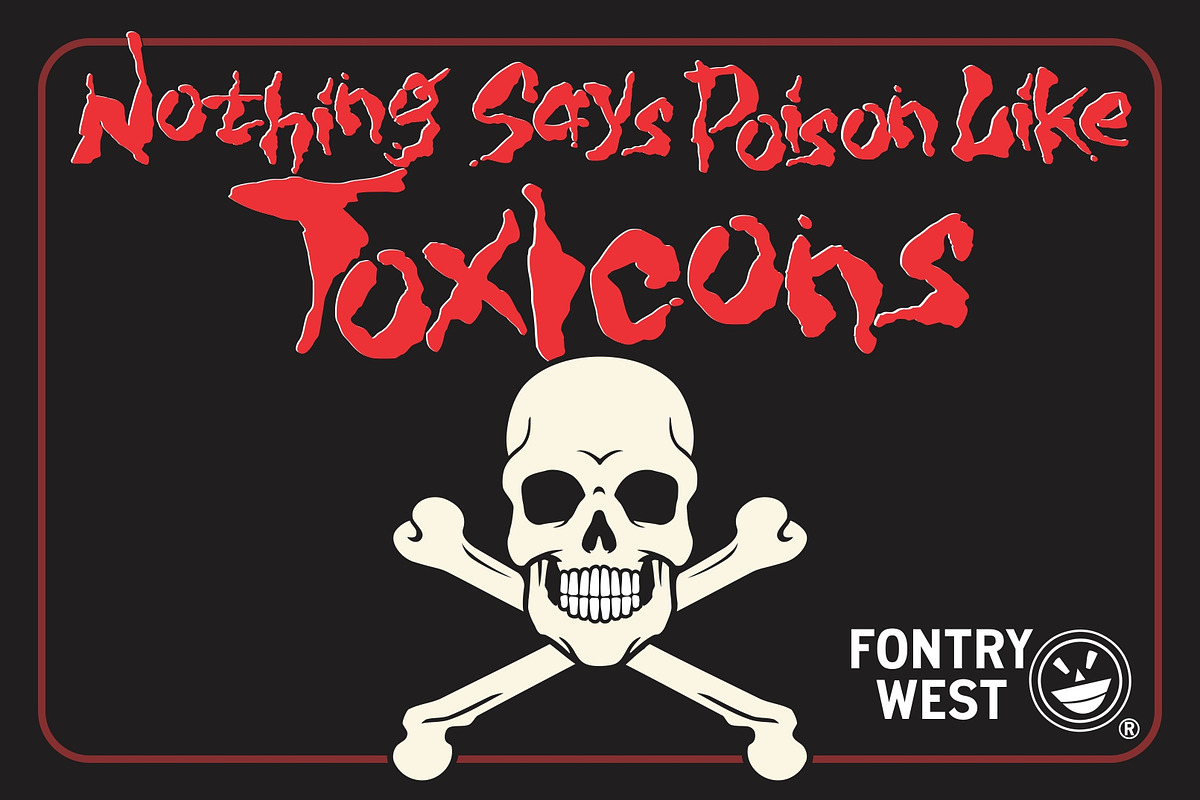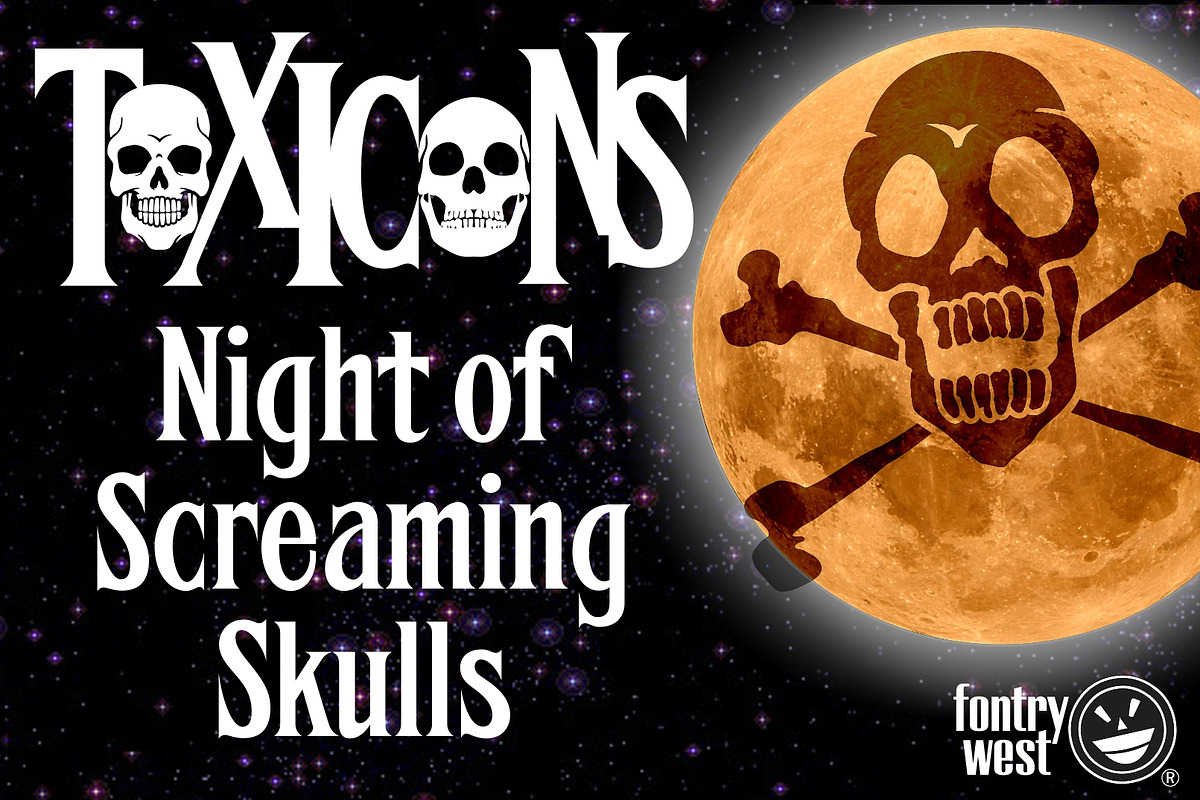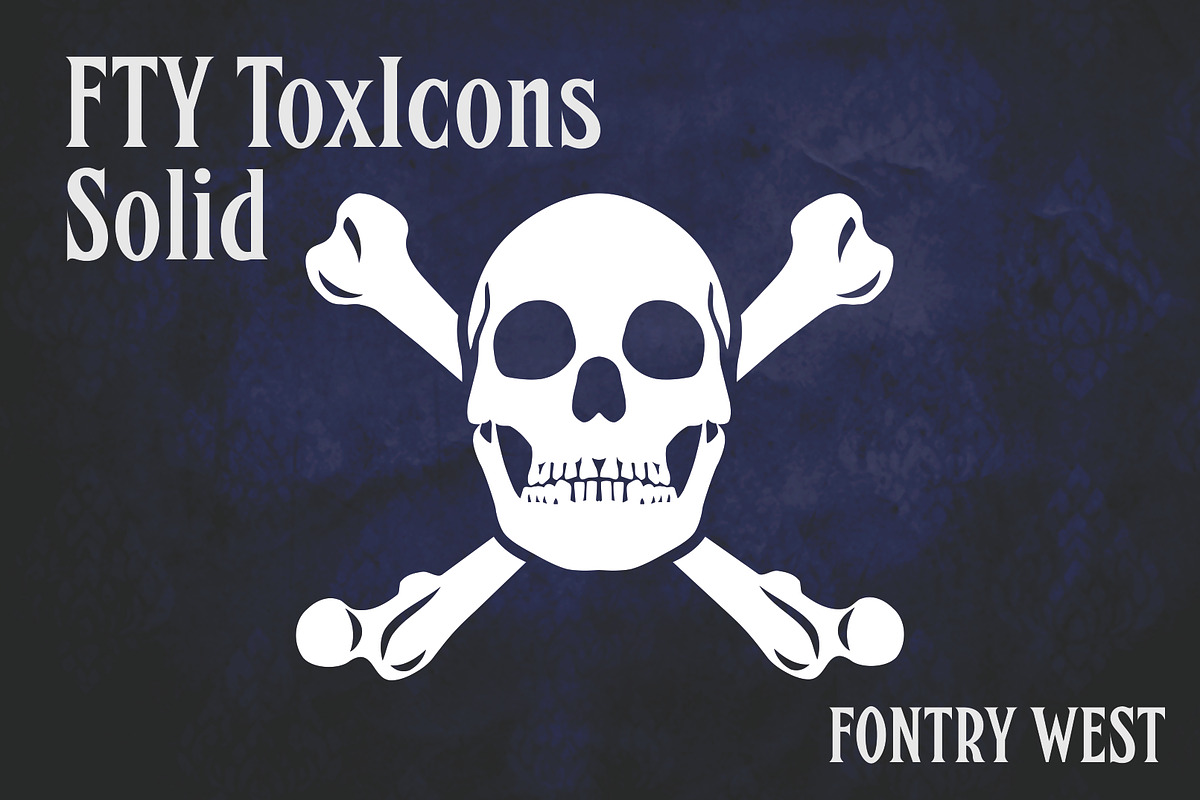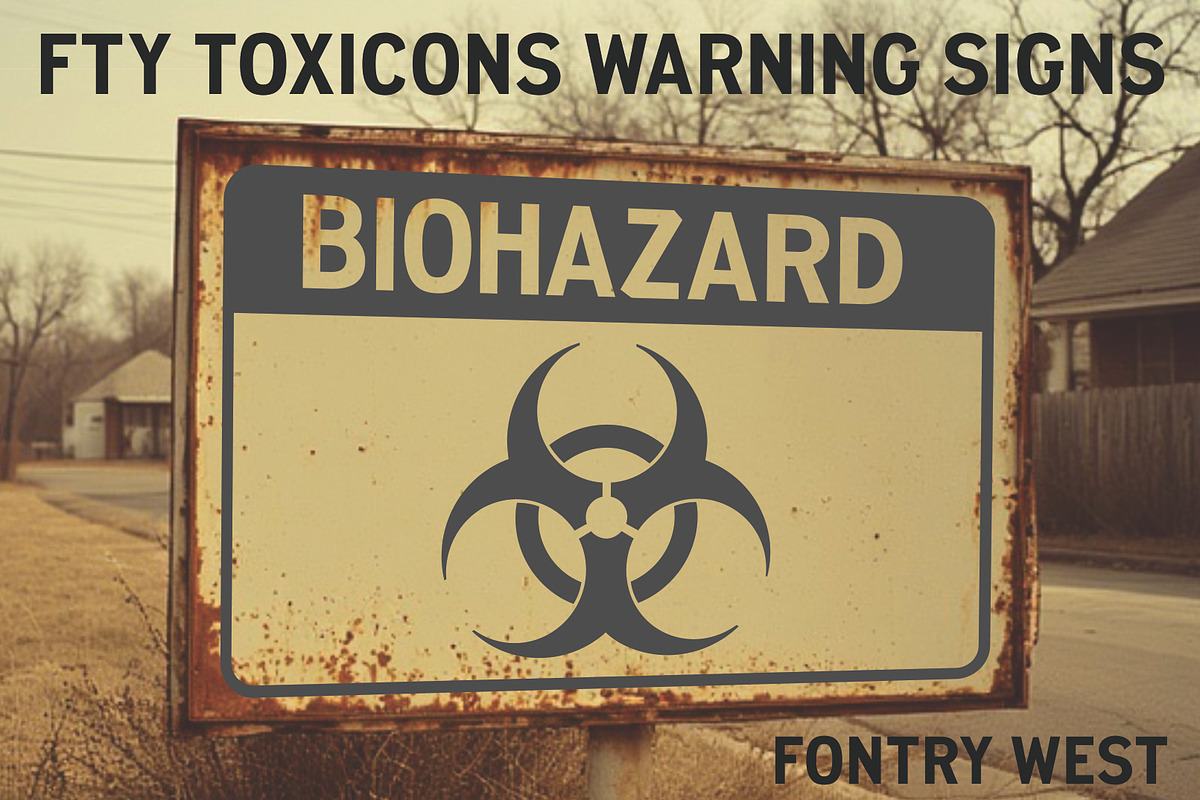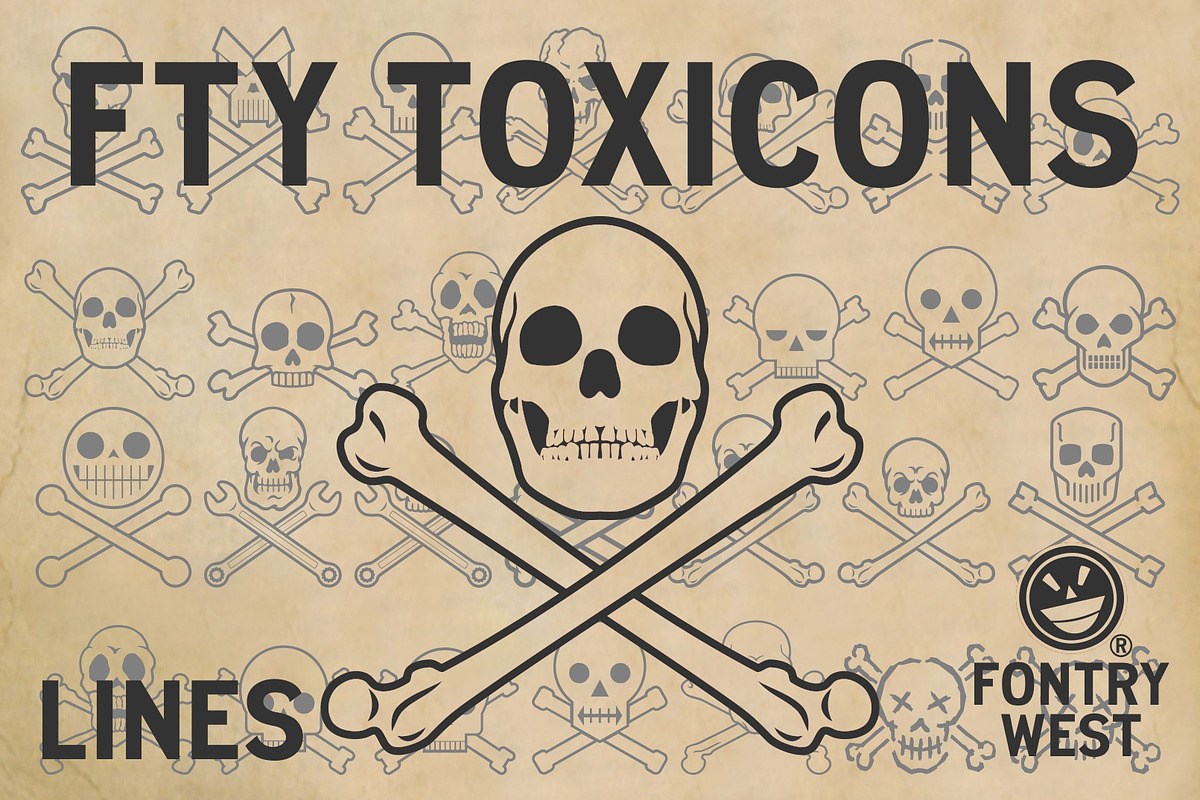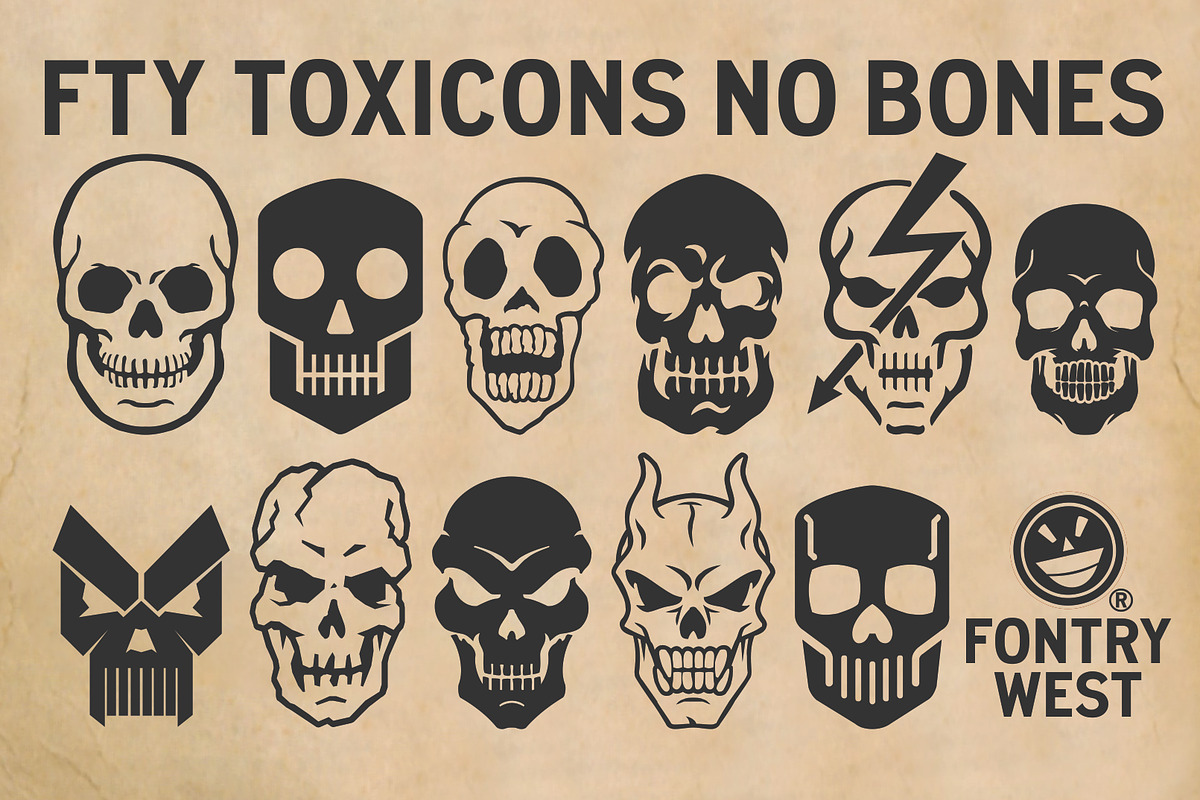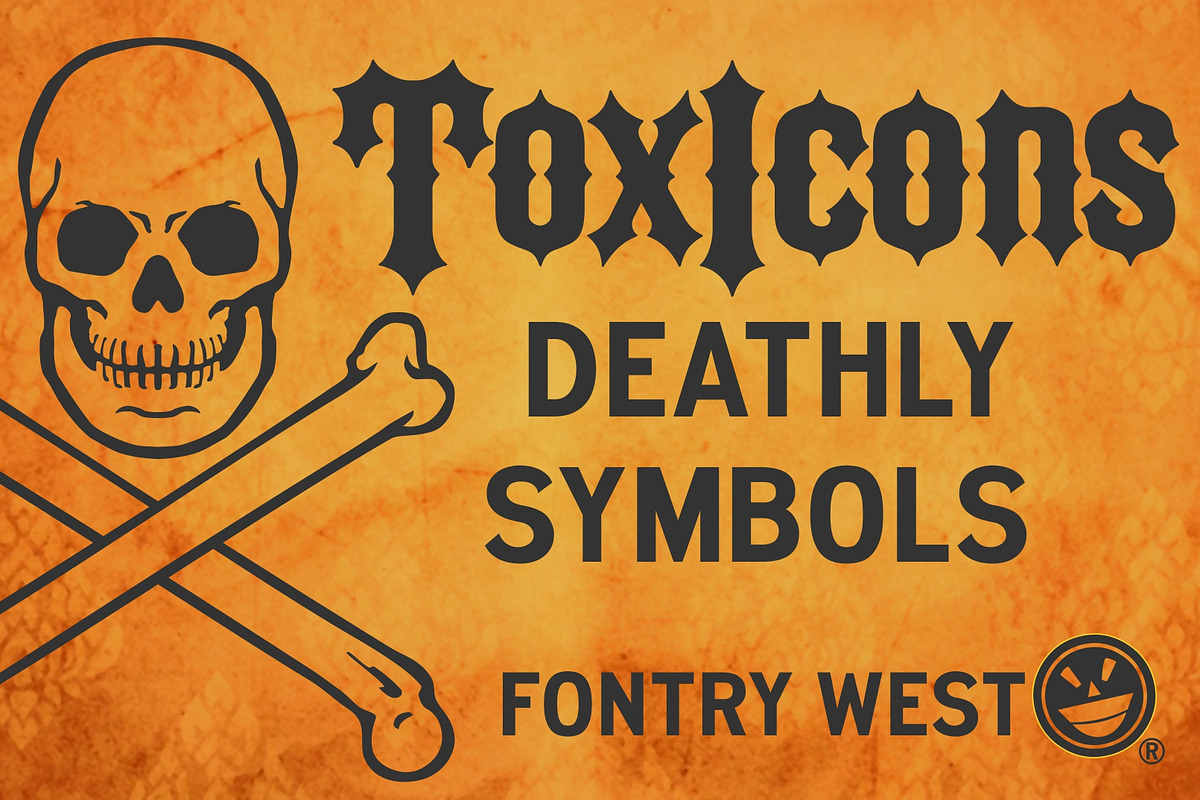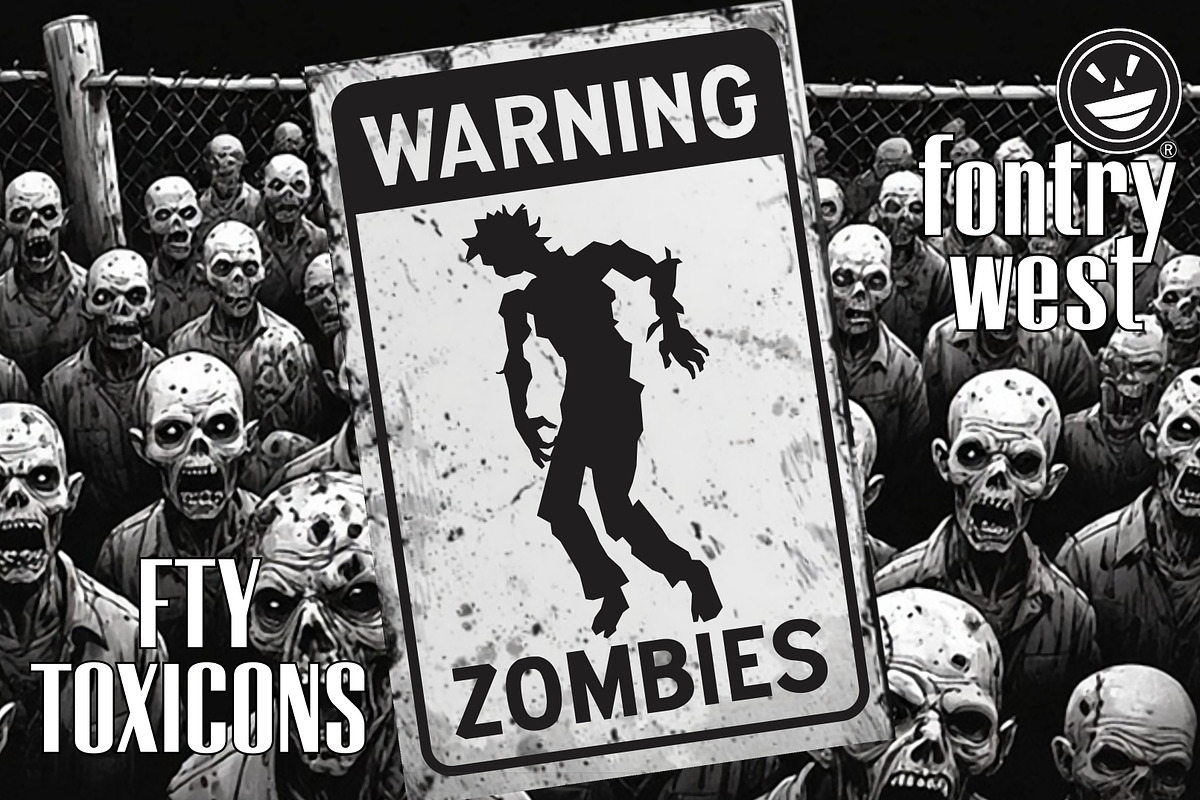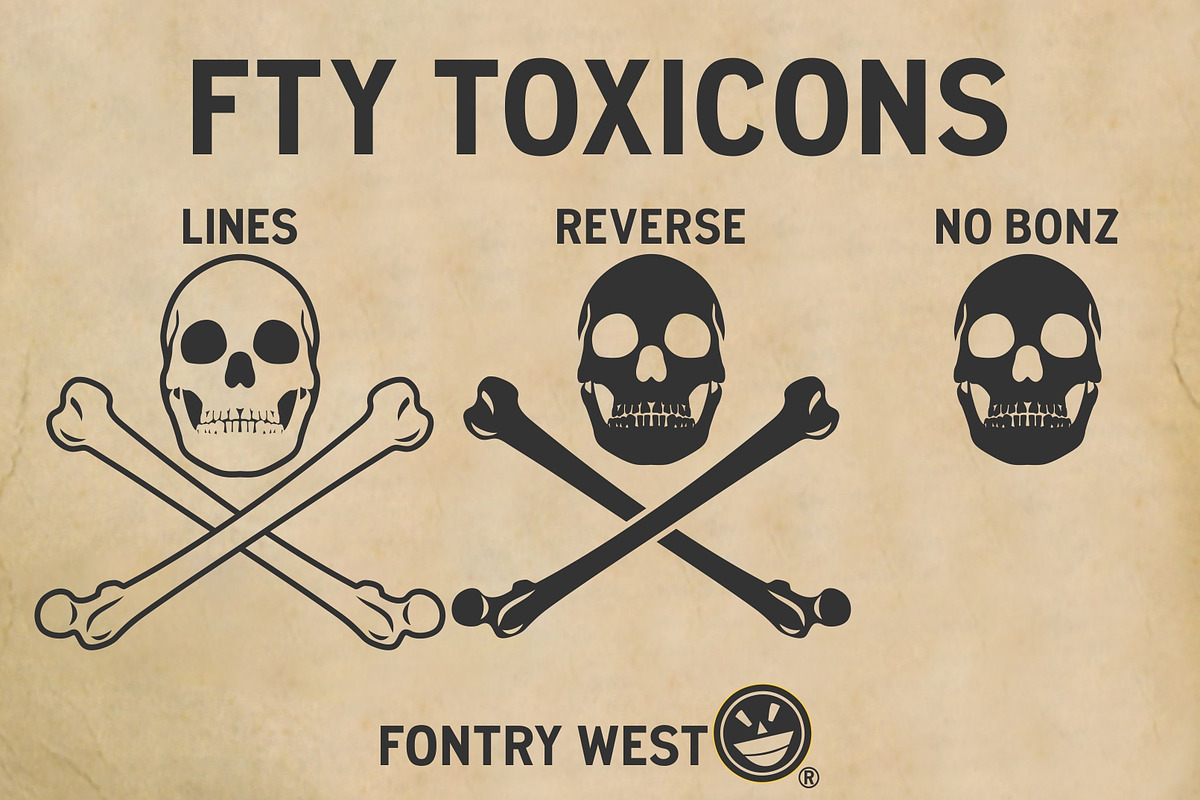
ToxIcons
Do you need to say TOXIC, POISON, DANGER, or just KEEP OUT? You need ToxIcons. The Toxicons are symbol fonts in three formats: Lines, Solid, and No Bones. These hazardous symbols come in a variety of delightfully deathly classic poison flavors: casual, realistic, mechanical, futuristic, comical, and demonic. Designers can pick their poison with ToxIcons. Just for spice, these fonts include biohazard, radiation and even cow skull symbols. Let folks know that danger is ahead - use a ToxIcon.